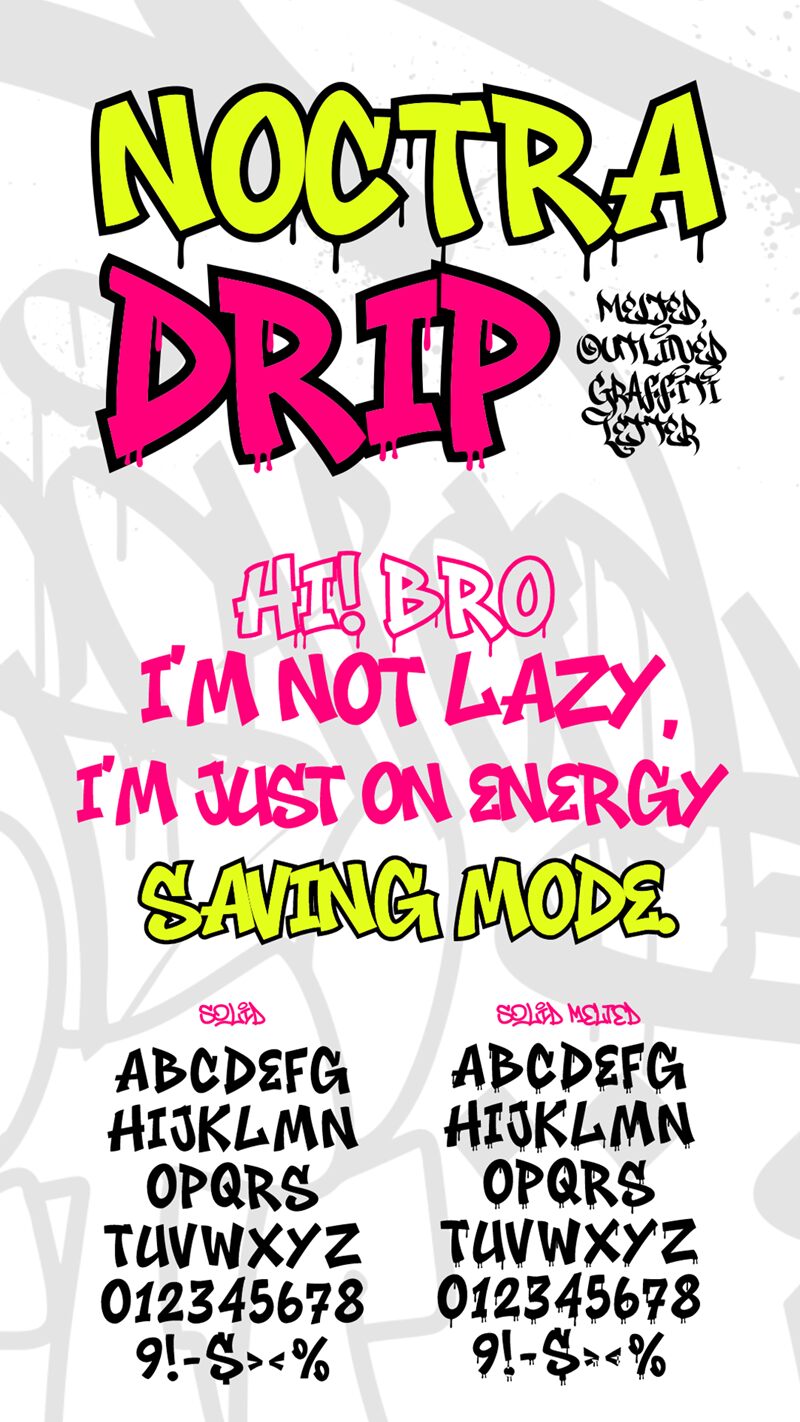
Noctra Drip font family is a free graffiti typeface designed by Cikareotype Studio with 4 font styles available to choose from. The letter designs are retro-inspired by the graffiti style with energetic and urban characteristics. Vibrant, expressive, and dynamic forms make it perfect for representing street culture, especially within the youth community. Rounded, bold outlines are responsible for this font’s informal tone and magnificent display effect.
Enjoy incredible display results when using Noctra Drip in posters, signboards, titles, and other large-scale designs. It can additionally be used in logos, covers, packaging, and t-shirts for a quick informal look. A youthful and raw feeling can be maintained by pairing the graffiti font with energetic visual elements.